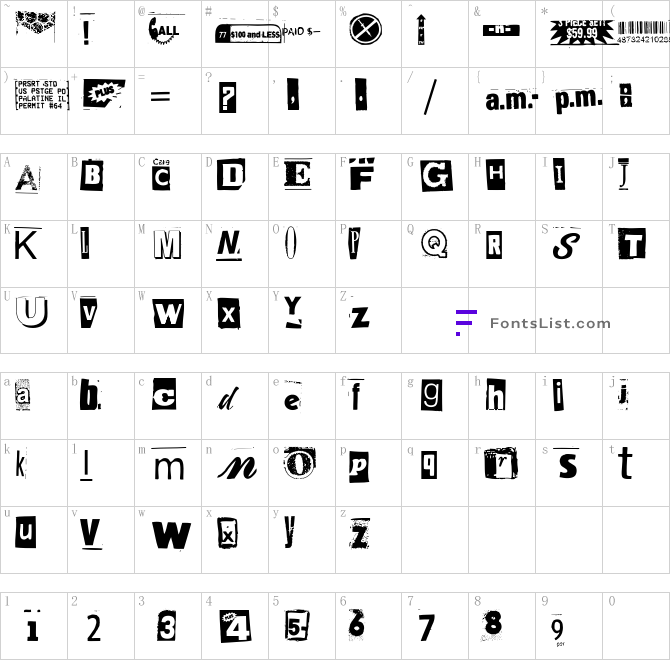
- Font Name:Anonymous Clippings
Anonymous-Clippings.ttf is a very beautiful artistic font, Anonymous-Clippings.ttf is widely used in the design and printing of various books and pictures,Anonymous-Clippings.ttf has a strong visual impact,Anonymous-Clippings.ttf is a commonly used font in newspapers, magazines and books, and is used in posters, e-commerce Poster design, store design, logo design, font design and other fields.Anonymous-Clippings.